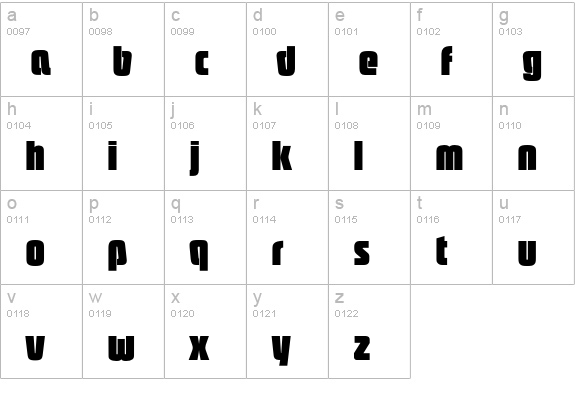
Pasadena-Heavy is a heavy, high-impact variant in the Pasadena typeface family \xE2\x80\x94 well suited to high-impact headlines, posters, and display advertising.
Pasadena-Heavy font is a bold and powerful typeface that commands attention with its robust and imposing presence. Its strong and sturdy letterforms exude confidence and make a bold statement in any design project. The thick and weighty strokes of this font make it ideal for headlines, titles, and logos that require a strong visual impact. This font is not only visually impactful but also highly legible, ensuring that your message is conveyed with clarity and precision. The generous spacing between characters allows for easy reading, even at smaller sizes. Whether you are designing a poster, website, or branding materials, Pasadena-Heavy font provides the perfect balance between power and readability. What makes Pasadena-Heavy font even more appealing is that it is freely available to download at FontsMarket.com. This means that you can easily access this impressive typeface without any cost or hassle. Simply visit FontsMarket.com and start using Pasadena-Heavy font in your designs today. With Pasadena-Heavy font, you have the freedom to create eye-catching and impactful designs without breaking the bank. Its bold and commanding presence, combined with its easy legibility, makes it a versatile choice for a wide range of design projects. Download Pasadena-Heavy font from FontsMarket.com and unleash its power in your next design endeavor.